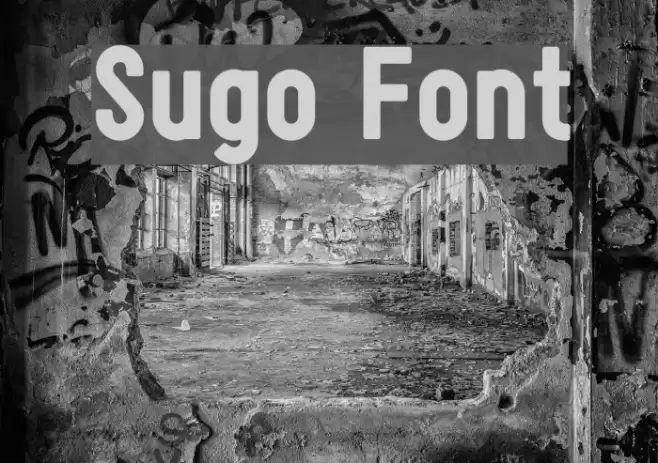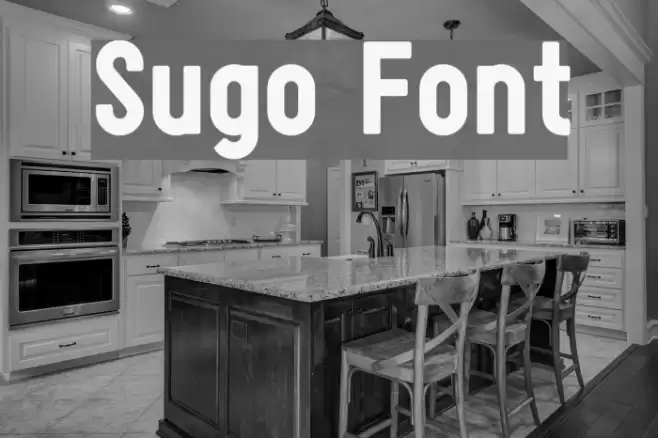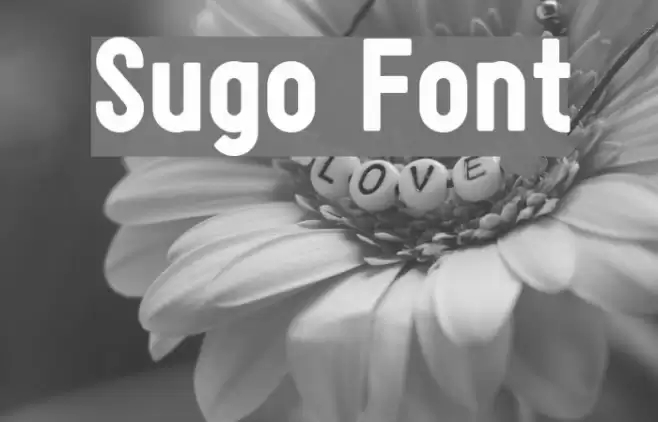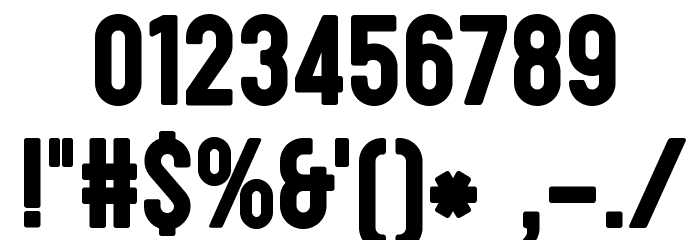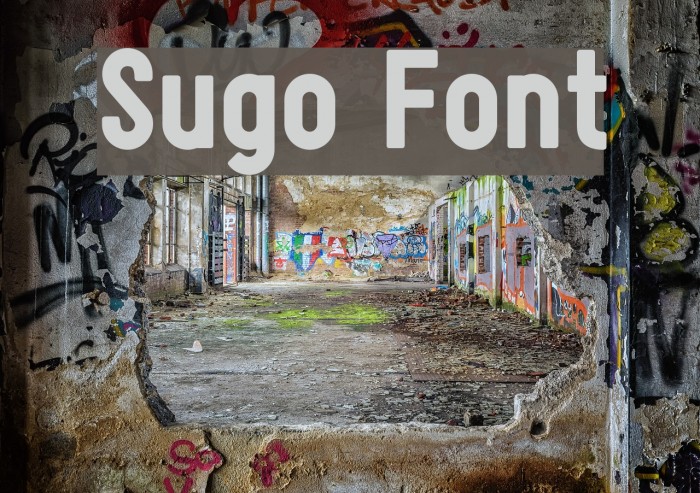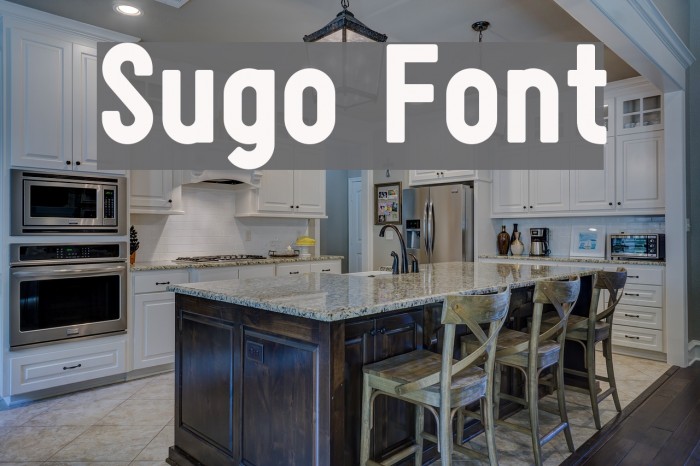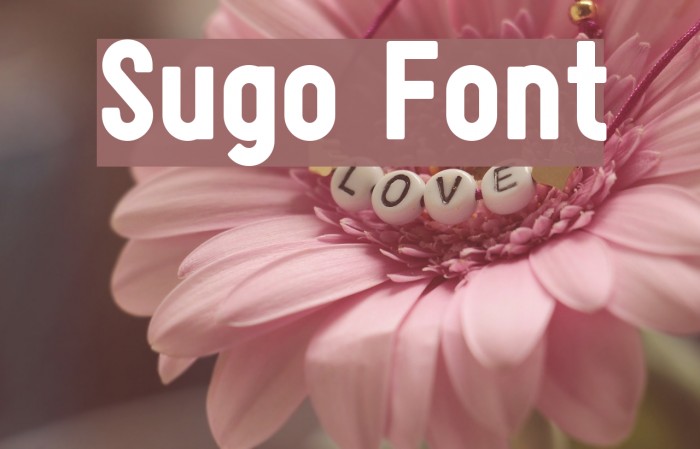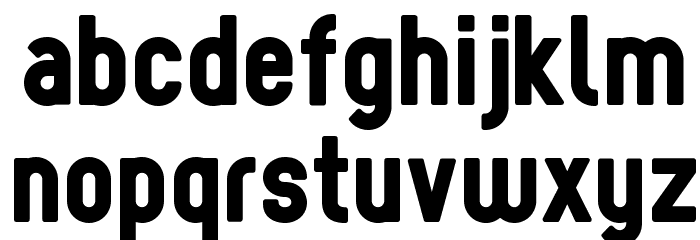
Sugo Font
Sugo Description
This font features a bold and robust design with a strong presence. The characters are uniformly thick, providing a consistent and solid appearance across both uppercase and lowercase letters. The numerals and special characters maintain the same weight, ensuring a cohesive look throughout. The font's geometric structure gives it a modern and clean aesthetic, making it highly legible and impactful. Its rounded edges soften the overall look, adding a touch of friendliness to its boldness. This font is versatile, suitable for a variety of applications where clarity and emphasis are needed.
A bold, modern font with a geometric and friendly design from Sans Serif fonts.
- Proposed Projects: Ideal for branding, headlines, posters, and signage where a strong and clear message is essential.